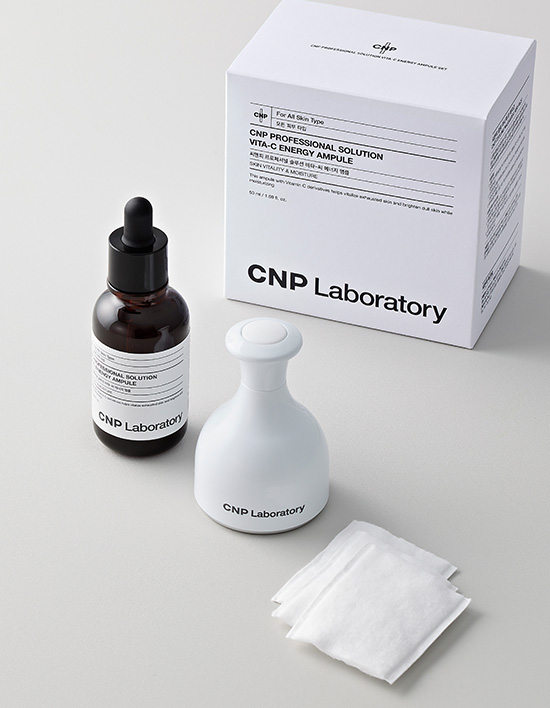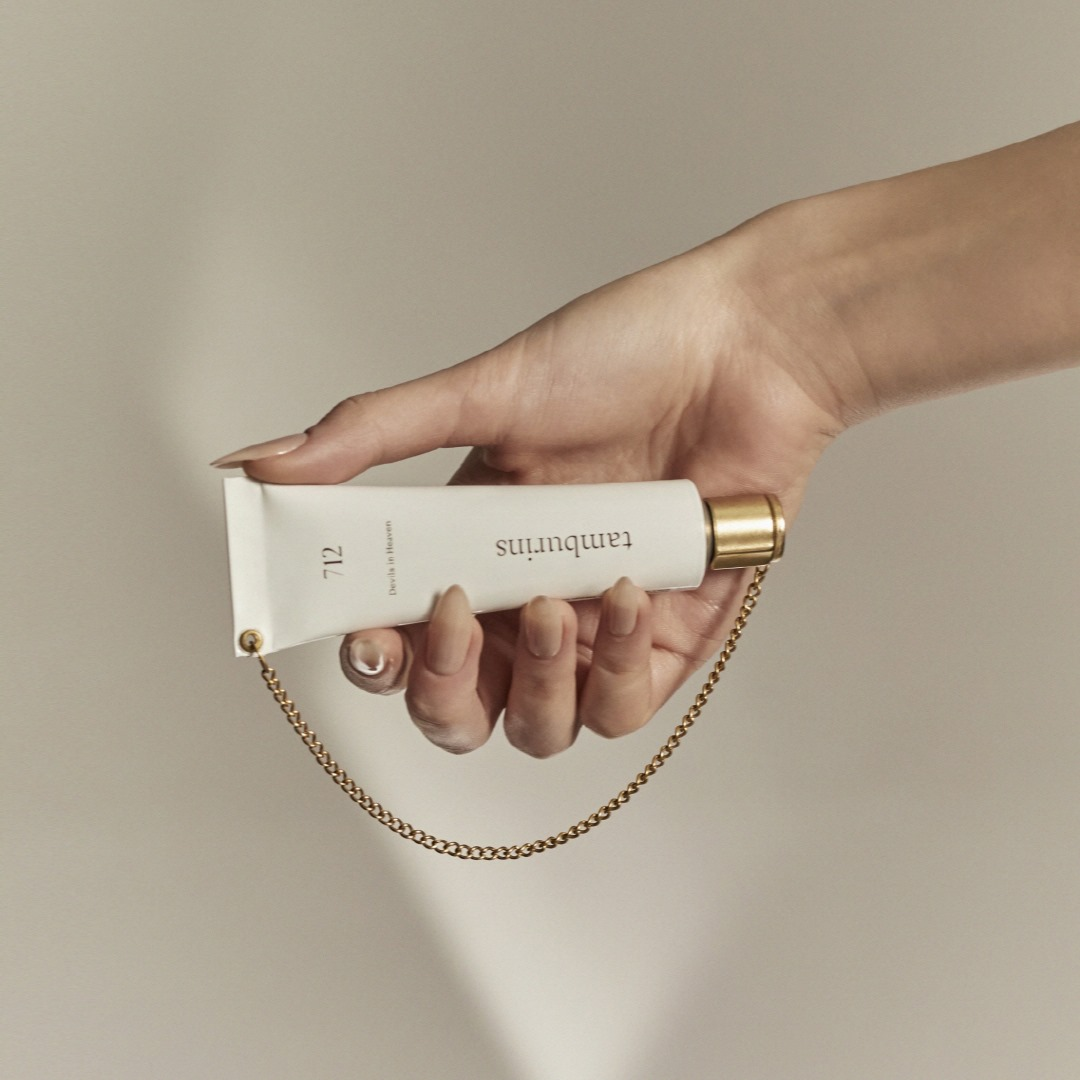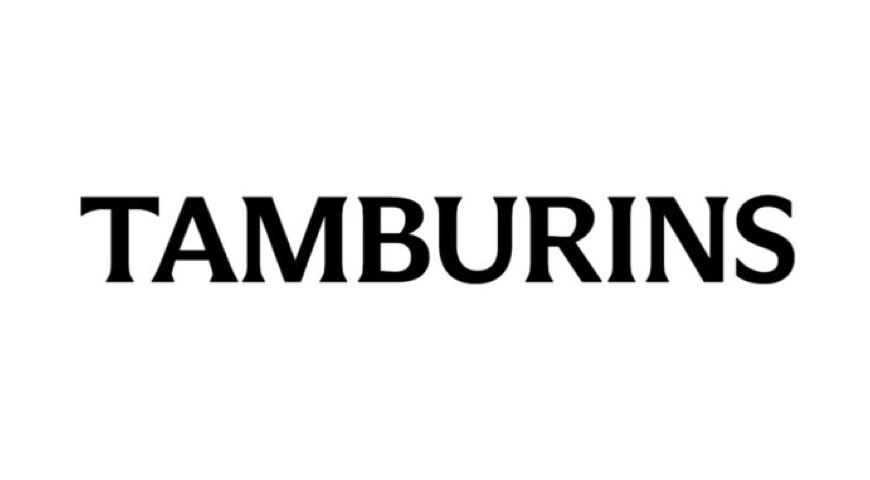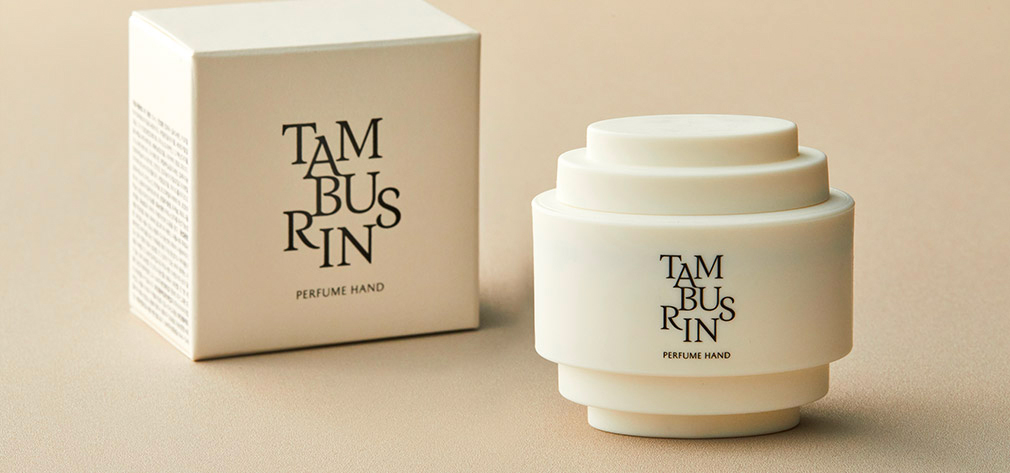
The Brand’s Face: The Logotype
Why do people choose one cosmetic product over hundreds of alternatives? It might be the luxurious packaging, the promise of high-quality ingredients, or simply an aesthetic that aligns with their personal style. To be chosen, cosmetic brands emphasize their strengths through visual elements such as logos and color palettes. Among these elements, the logotype—often a brand’s very first impression—has enormous influence. In fact, research shows that consumers feel an urge to purchase not just from the product itself but from the brand’s logo and related visual cues.
Most cosmetic brands use logotypes built from letterforms. To stand out in a fiercely competitive market, they craft distinctive and compelling logotypes. As a result, the cosmetics industry offers many examples of highly refined logotype design. Today, we’ll look at several successful cases where the logotype effectively captured the brand’s identity.
1.Sulwhasoo’s Heritage
Sulwhasoo is the brand that laid the foundation for what Amorepacific is today. Its story begins in 1932, when Yun Dok-jeong, mother of founder Suh Sung-whan, began selling camellia oil. Over the next six decades, the company built deep expertise in traditional Korean herbal science, eventually launching Sulwhasoo in 1997—a name meaning “to bloom beautiful snow flowers on the skin.”
Oriental Aesthetics Rooted in Calligraphy
Sulwhasoo positions itself as a heritage brand grounded in traditional Korean herbal science and artistic sensibility. Its mission is “to create a world of beauty through art and heritage.” Reflecting this philosophy, Sulwhasoo’s original 1997 logotype resembles a piece of calligraphy—brush-stroked characters paired with a seal mark symbolizing traditional herbal medicine.
When the brand expanded internationally in 2009, it introduced an English logotype inspired by the 「Arita Buri」typeface—refined, graceful, and reminiscent of traditional Korean architectural curves. By embedding heritage sensibilities directly into its logotype, Sulwhasoo maintained strong brand recognition and eventually became the first Korean cosmetics brand to exceed KRW 1 trillion in annual sales in 2015.
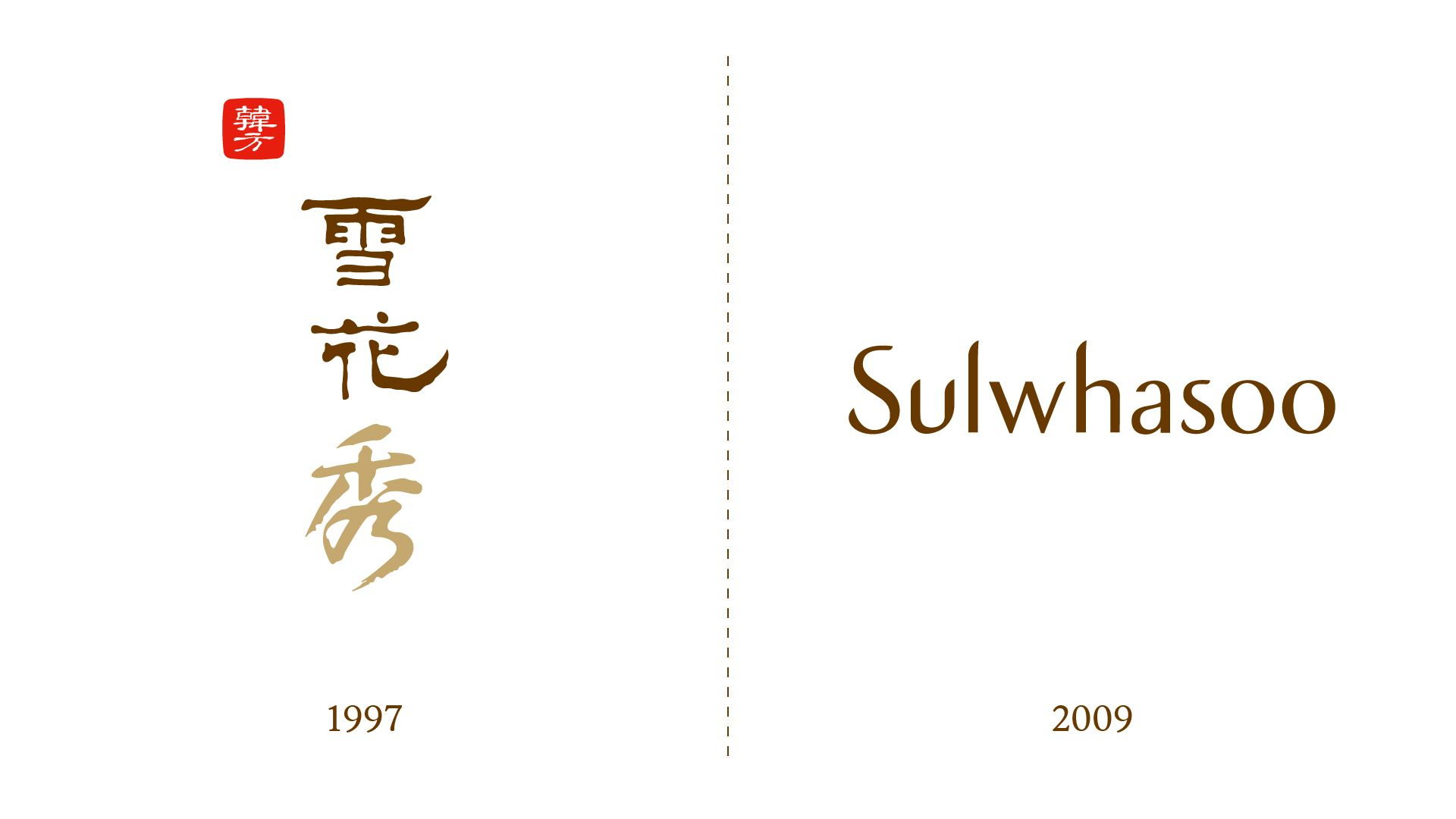
Preserving Heritage Through Modern Reinterpretation
In 2022, Sulwhasoo rebranded to appeal to the North American market and the MZ generation. This shift required a refreshed logotype—one that removed Chinese characters to communicate more directly with global audiences. Its ginseng-inspired heritage is now expressed through the signature “Amber” color.
Minimalism helped reshape the brand into a modern, global identity—cleaner forms conveying contemporary sophistication. The result? A 308% year-over-year increase in North American sales by 2024, marking a highly successful transformation.
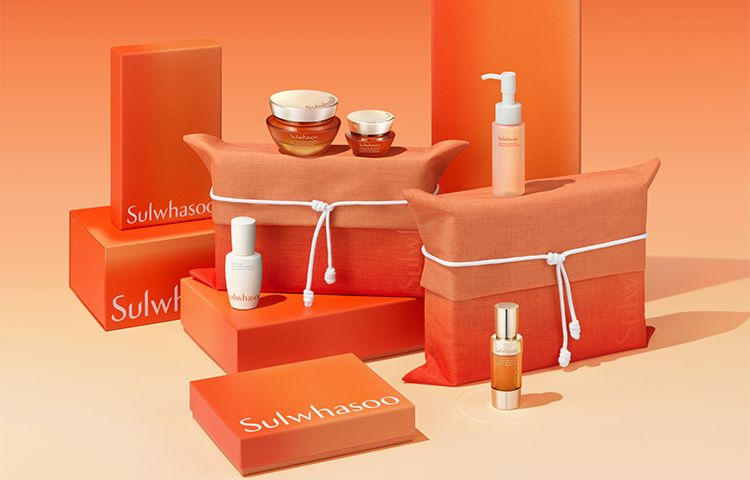
2.Innisfree and the Philosophy of Naturalism
Innisfree emerged in 2000 as a brand rooted in “naturalism.” Beginning in 2009, it emphasized a narrative centered on pure Jeju ingredients, quickly establishing itself as Korea’s leading natural cosmetics brand.
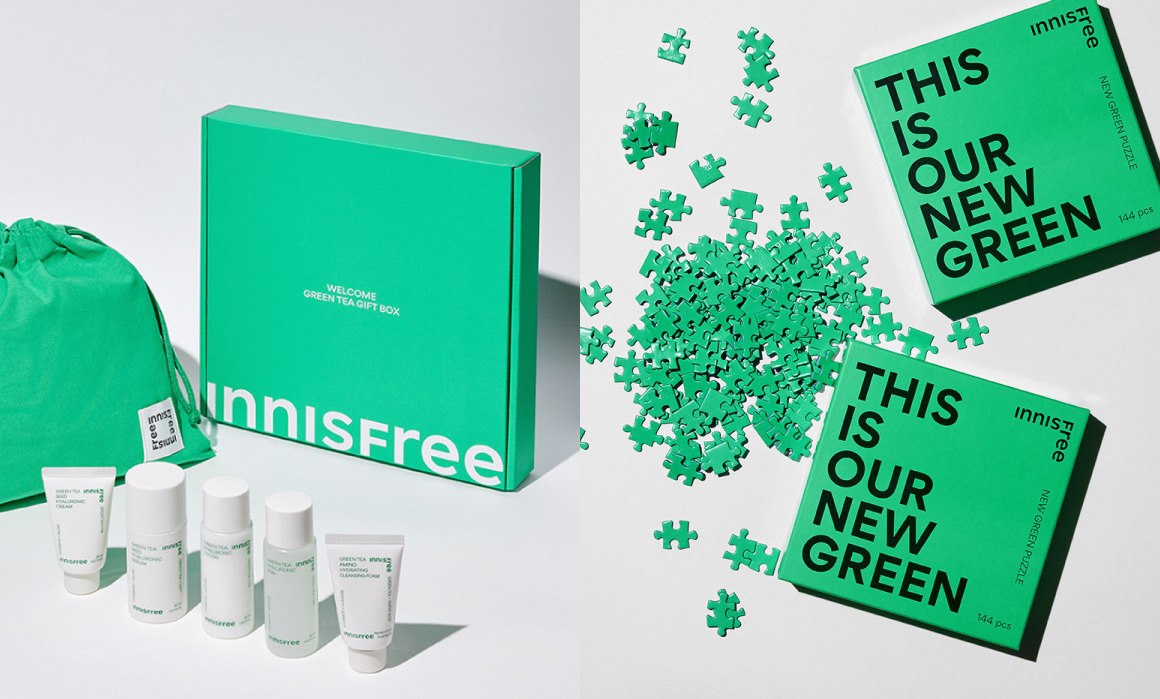
Forms Inspired by Nature
Innisfree’s earlier logotype incorporated natural motifs within a serif structure. Flowing curves and stroke contrast evoked the vibrancy of nature. The ascending curve of the n suggested a sprouting stem, the terminal* of the rresembled a small leaf, and the f was shaped to directly symbolize foliage. This emotionally expressive logotype helped cement Innisfree as the representative natural-brand of its era, leading to top domestic sales and global expansion.
*Terminal: The end of a curved stroke in lowercase Latin letterforms.
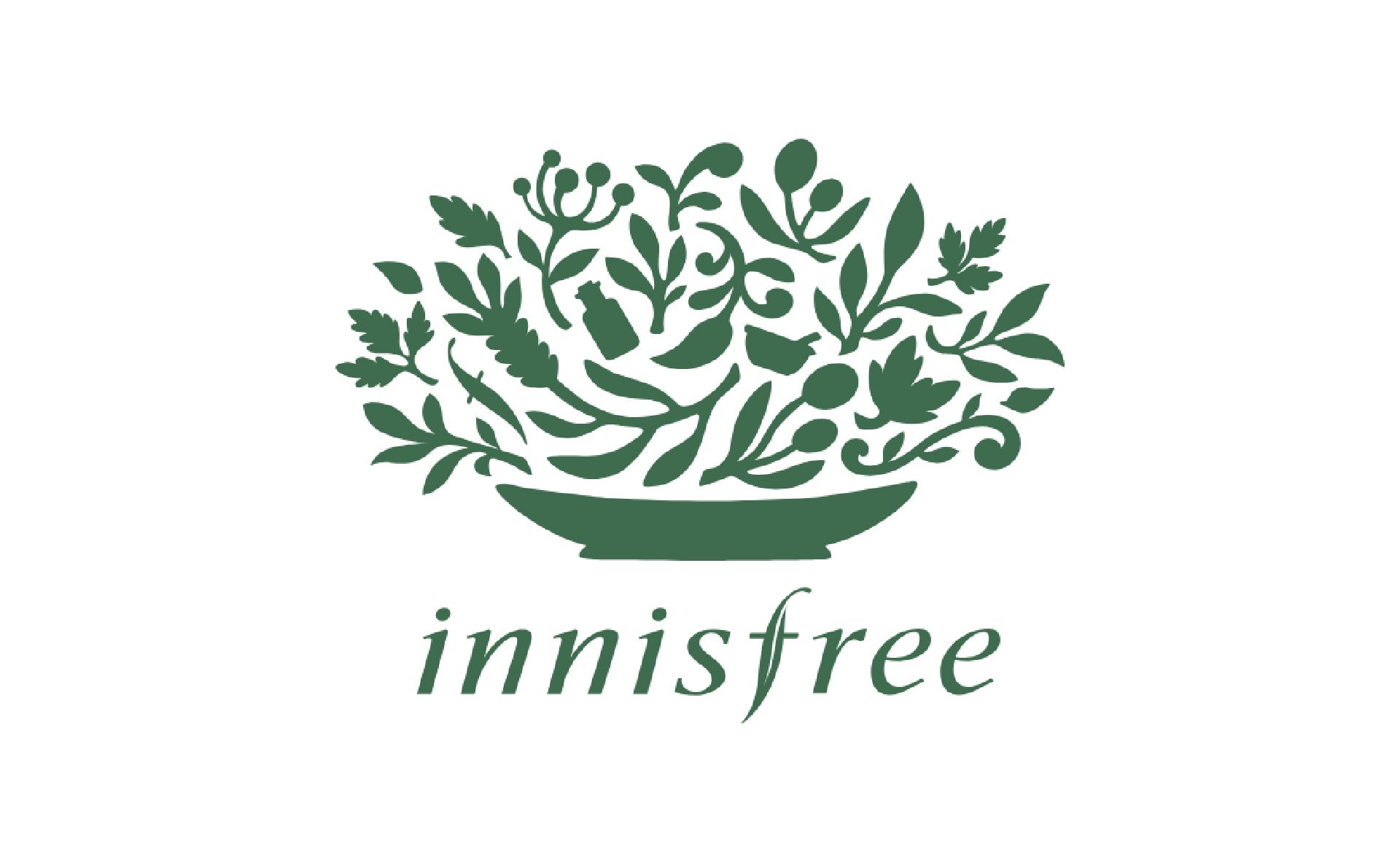
From Road Shops to Mobile: Innisfree’s Shift
As natural-themed competitors increased and H&B stores replaced traditional road shops, Innisfree’s growth slowed after 2016. In response, the brand introduced a 2018 rebrand, simplifying the logotype to express a more modern form of naturalism.
In 2023, targeting Gen Z consumers, Innisfree undertook a bold rebrand featuring a thick geometric sans serif logotype paired with neon green. This shift reflected digital consumption trends, where sans serif typefaces offer superior legibility—especially on mobile screens. Since then, Innisfree has seen renewed traction in both online and global markets.
3.Skincare Developed by Experts, CNP Laboratory
CNP is a dermacosmetic brand built on the knowledge of skincare professionals. With clinically verified ingredients and strong credibility, the brand established itself as a leader in Korea’s dermacosmetic market.
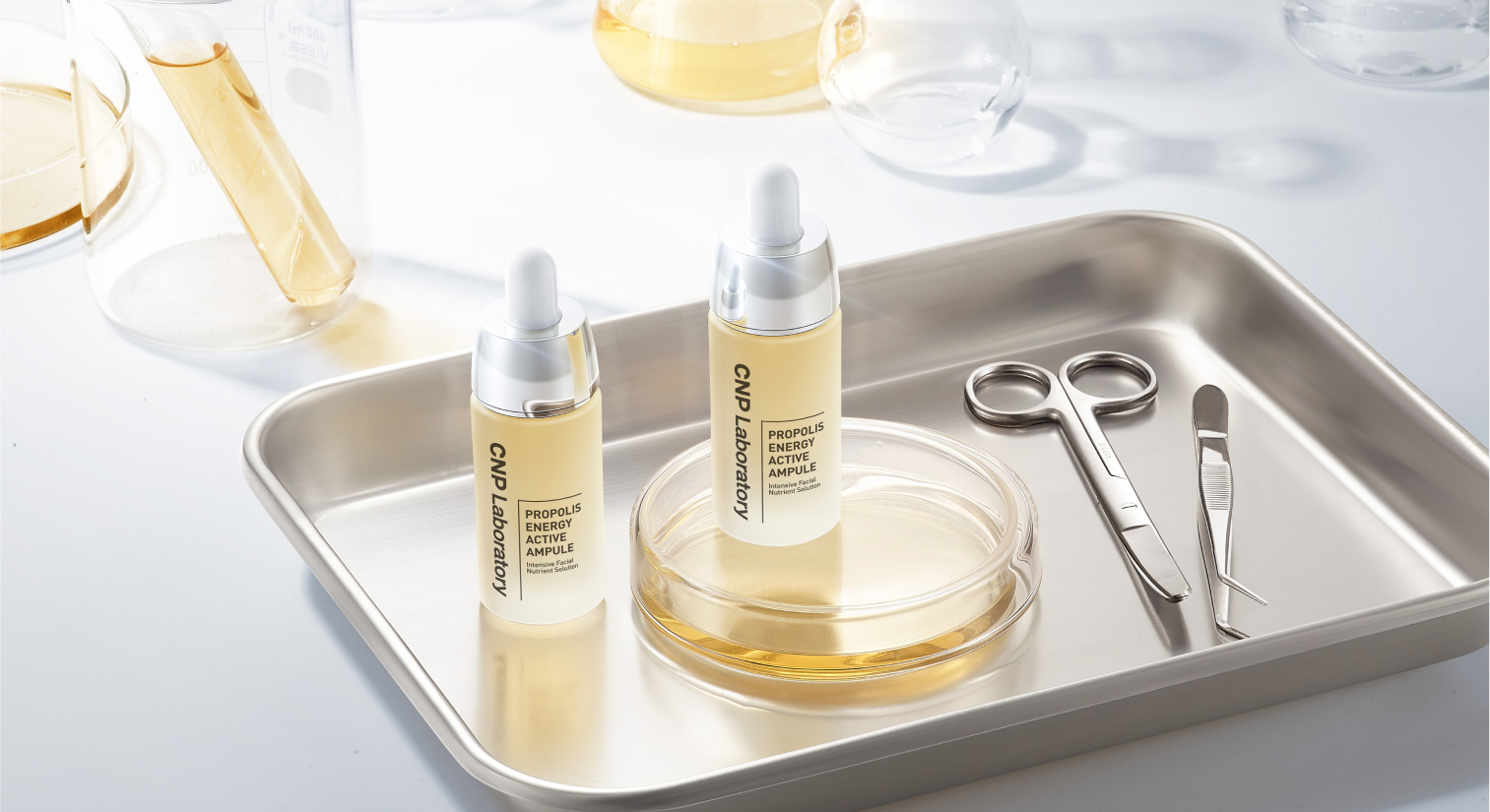
A Logotype that Leaves Only What Matters
CNP’s logotype is a minimalist neo-grotesque sans serif*. Its straight lines and uniform strokes communicate reliability and precision. By avoiding decorative elements, the logotype emphasizes clarity—mirroring the brand’s focus on ingredients and efficacy.